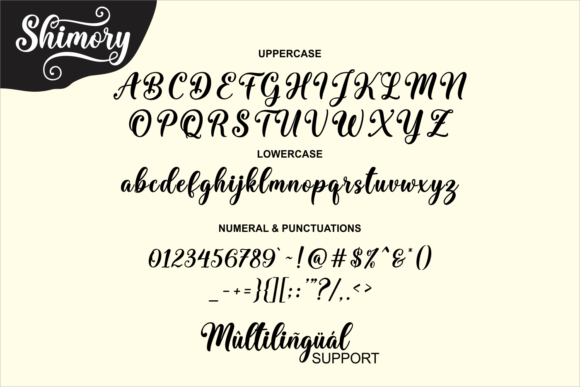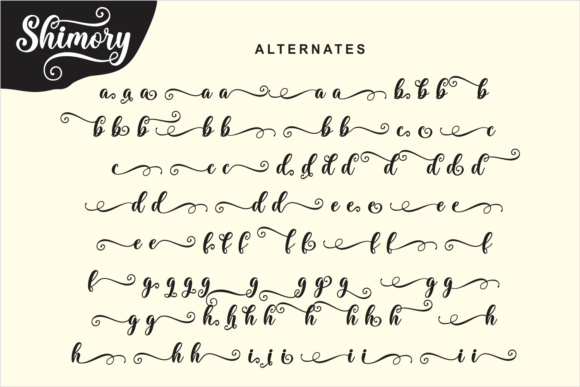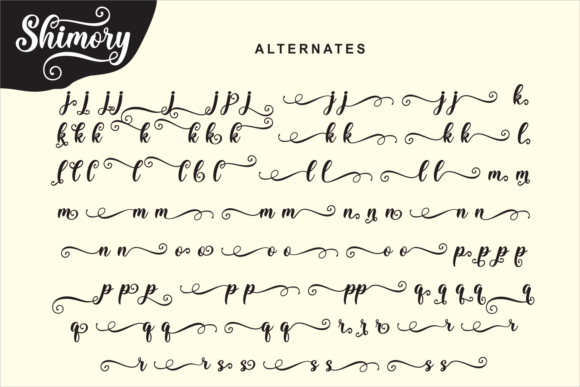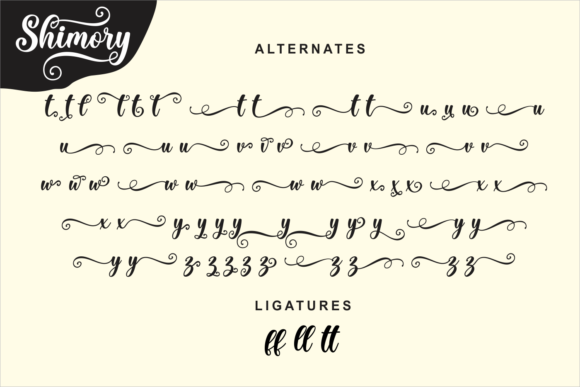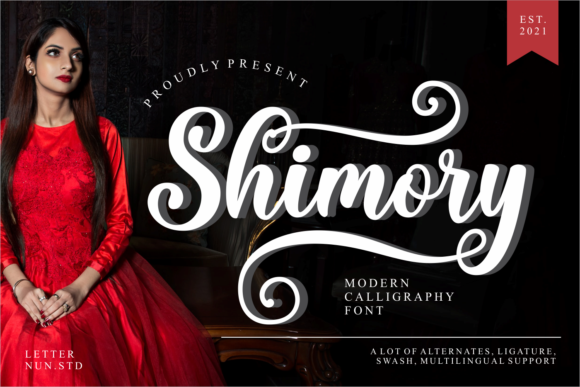
Shimory Font
About Shimory Font
Shimory is a dazzling script font. This font is neatly crafted and highly detailed. It is PUA encoded which means you can access all glyphs and swashes with ease!